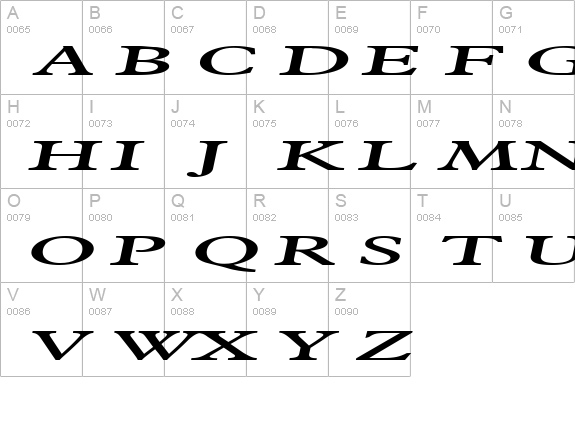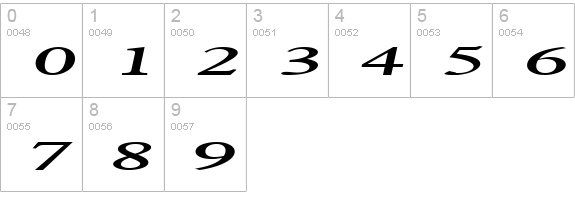
Nadine Extended Italic Font Details
Nadine Extended Italic is a distinctive, extended-width, italic variant in the Nadine typeface family \xE2\x80\x94 well suited to design and typography projects.
Nadine Extended Italic font is a sleek and elegant typeface that exudes sophistication and modernity. Its stylish slanted design adds a touch of flair to any project, making it perfect for fashion, branding, and editorial use. The extended letterforms provide a unique and eye-catching look that sets it apart from other fonts. What's even better is that Nadine Extended Italic font is available for free download at FontsMarket.com. This means you can easily add this versatile and striking font to your collection without any cost. Don't miss out on the opportunity to elevate your designs with the distinctive charm of Nadine Extended Italic font. Download it today and see the difference it can make in your projects!